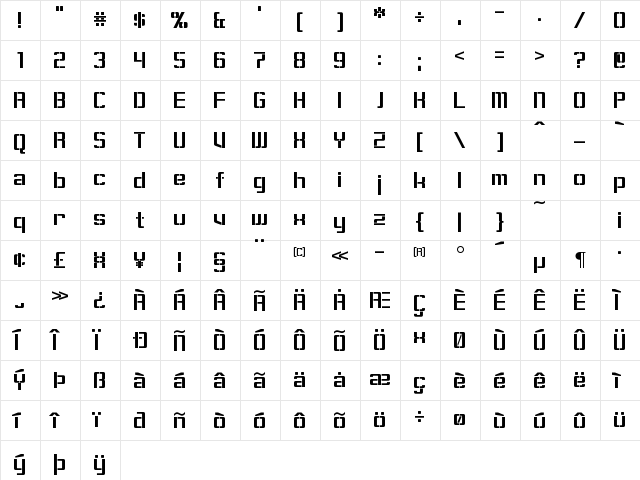
Sorenson Regular
| Designer | Neale Davidson |
Design Context for Sorenson Typeface
Sorenson takes a measured approach to typography — its balanced proportions and neutral character make it a reliable workhorse for both digital and print work.